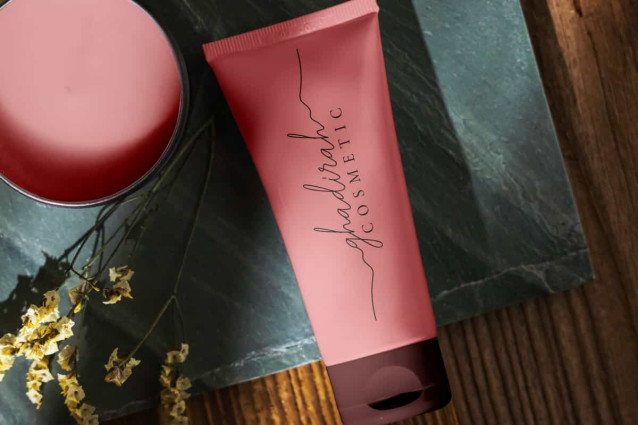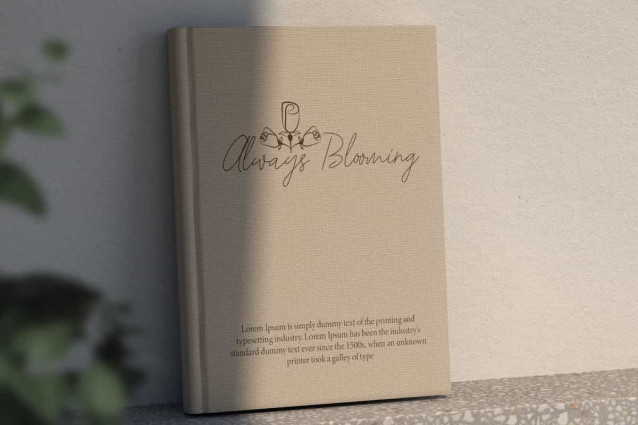
Your Happy Font
Your Happy Font is a sleek and delicate handwritten signature font. This font provides a beautiful and simple look through the thin lines. It will be suitable for any industries, such as beauty product, event or wedding organizer, fashion, florist, advertisement, printing, publishing, real estate, restaurant, and more!
Your Happy Font includes full set of Uppercase and Lowercase Basic Characters, Numerals, Punctuation and Symbol. Go get and use this stunning font with Ligature, Alternate, and Swoosh characters as well in your various designs, such as invitation, stationery, brochure, custom design, gift box, greeting or thank you card, invitation, label, menu, poster, quote, screen printing, signage, website, and more!